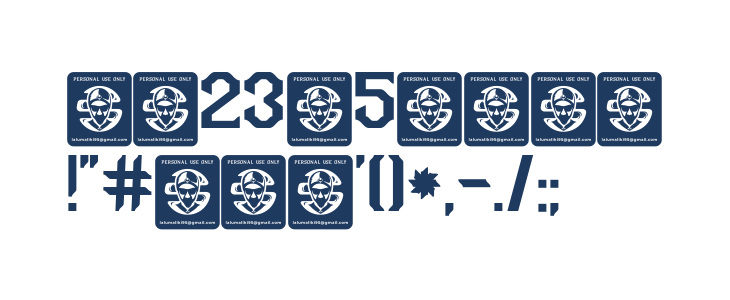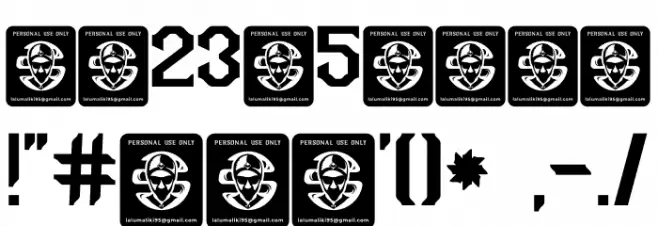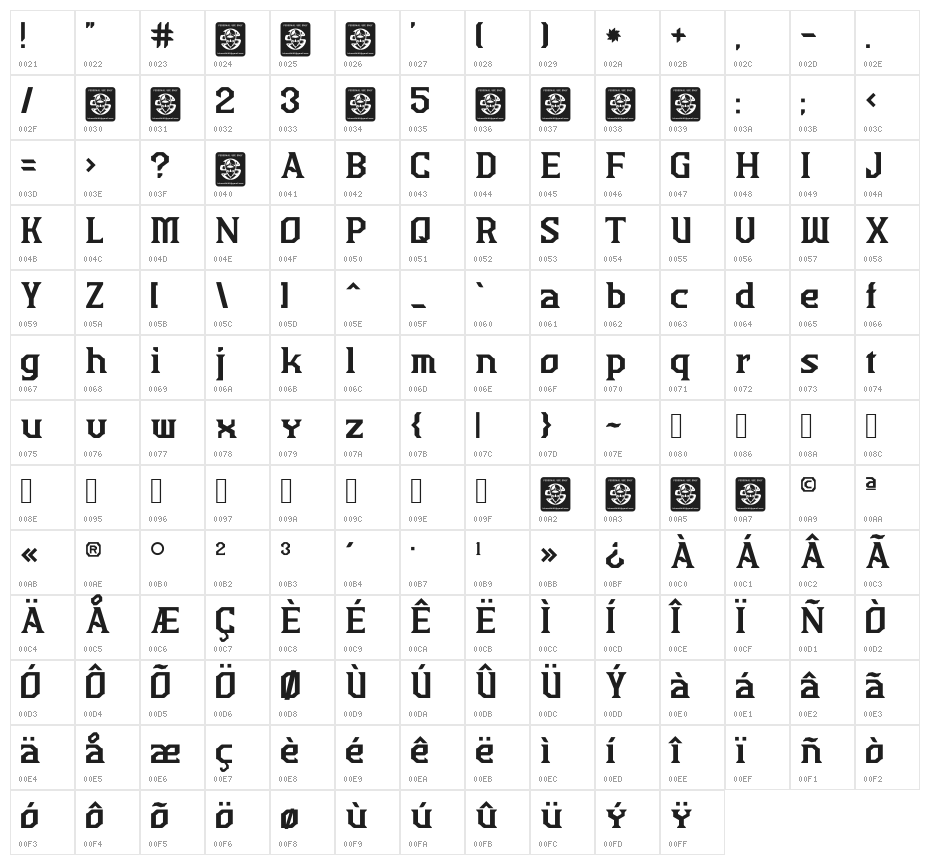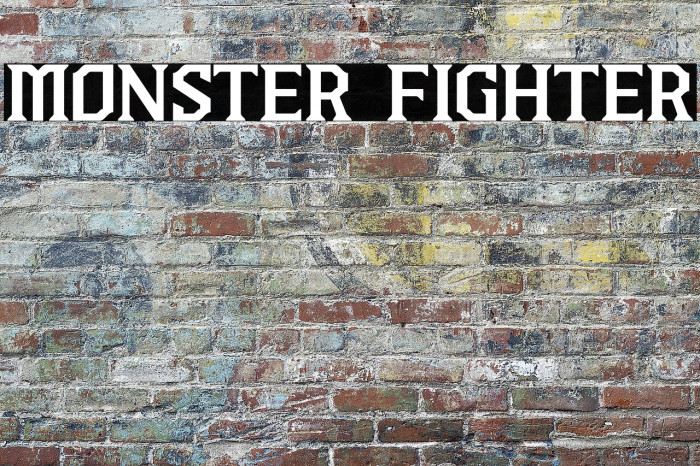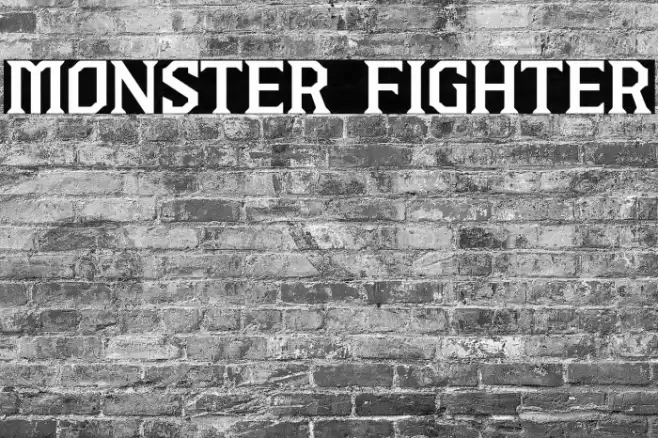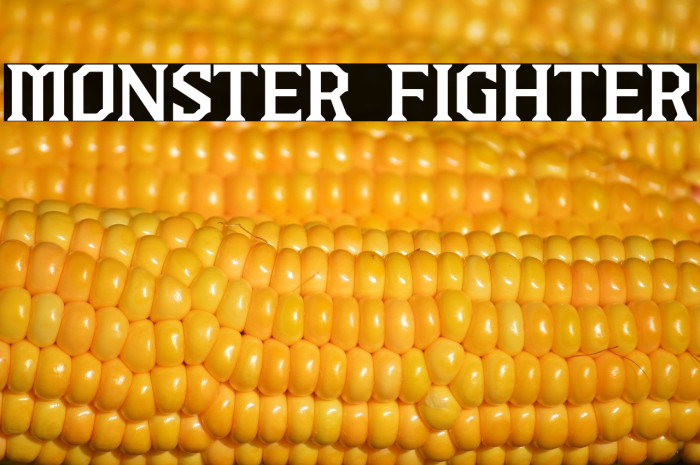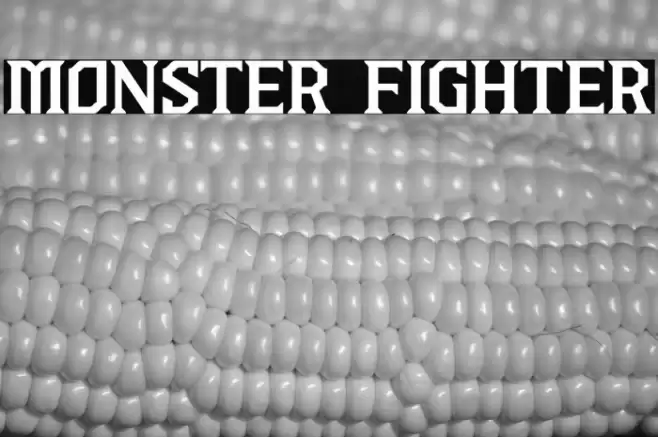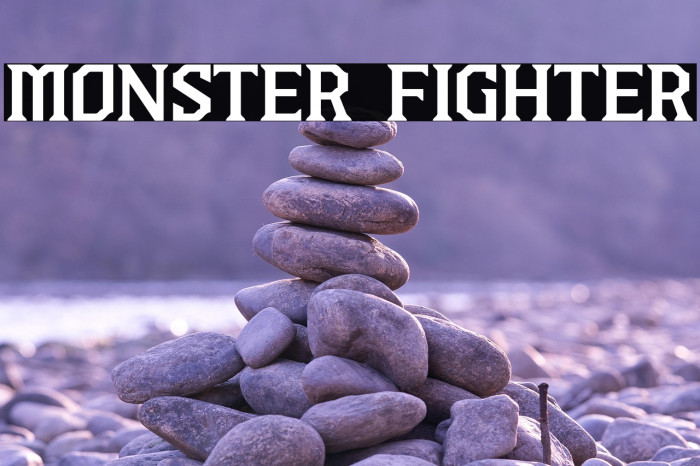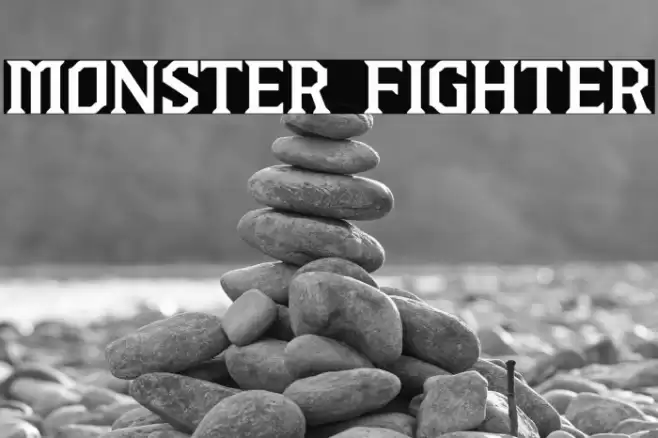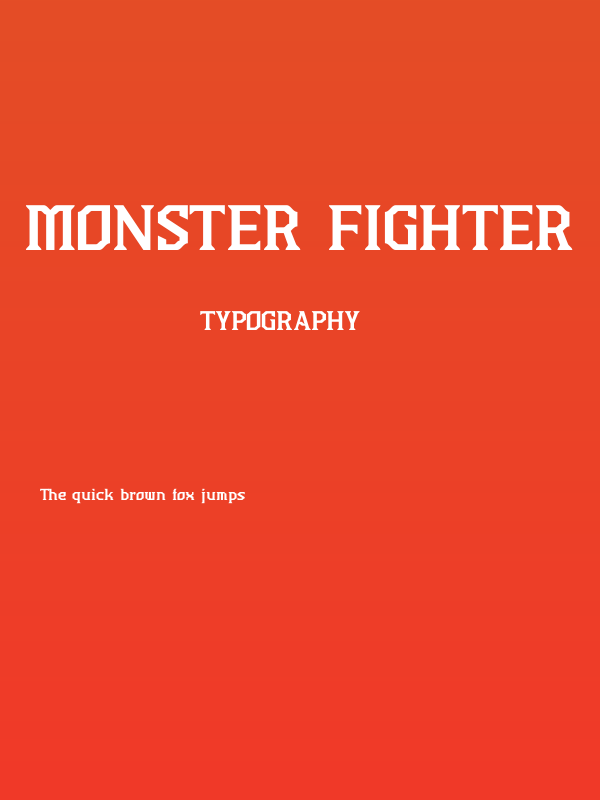
MONSTER FIGHTER Font
MONSTER FIGHTER Description
This font features a bold and aggressive style, characterized by sharp, angular lines and a strong presence. The uppercase letters are particularly striking, with a gothic influence that gives them a medieval, battle-ready appearance. The lowercase letters maintain the same angular aesthetic, providing a cohesive look across the typeface. Numbers and special characters are designed with the same boldness, ensuring consistency throughout. This font is ideal for projects that require a dramatic and impactful visual statement.
Overall StyleGothic, Medieval, Bold
Proposed ProjectsPerfect for video game titles, movie posters, or any project needing a strong, dramatic typeface.